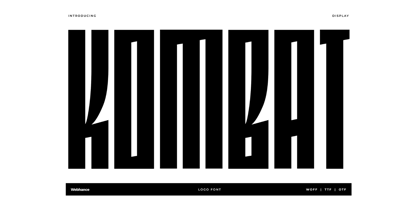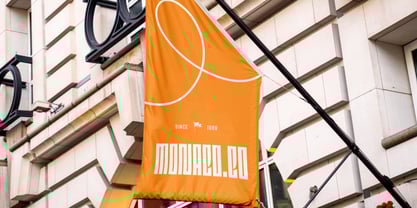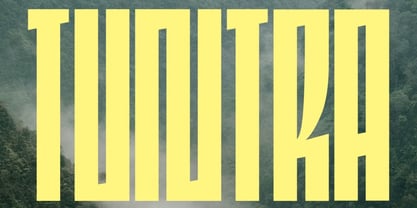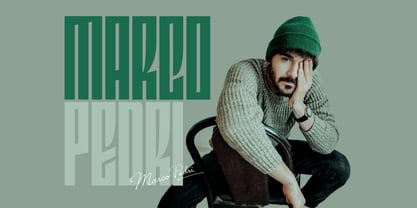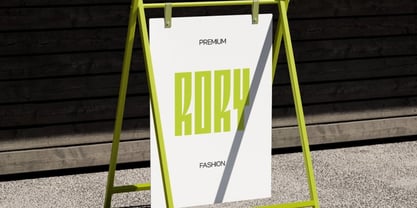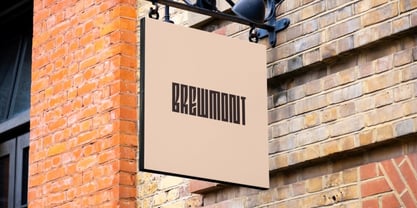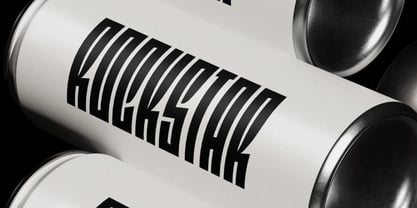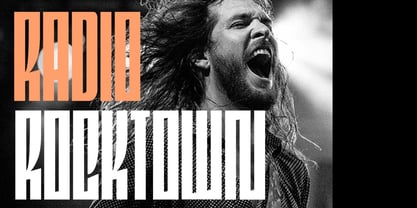
Edgar Kombat
by Webhance
The Edgar Kombat Font Family was designed by Ancy George and published by Webhance. Edgar Kombat contains 2 styles and family package options.
The Edgar Kombat font family is a bold and ultra-condensed display typeface crafted to deliver high visual impact in modern design. With its towering vertical form, sharp internal angles, and brutalist character, Kombat is made to stand out across posters, branding, album covers, packaging, and digital compositions. It supports more than 100 languages, making it a solid and flexible choice for global design projects.